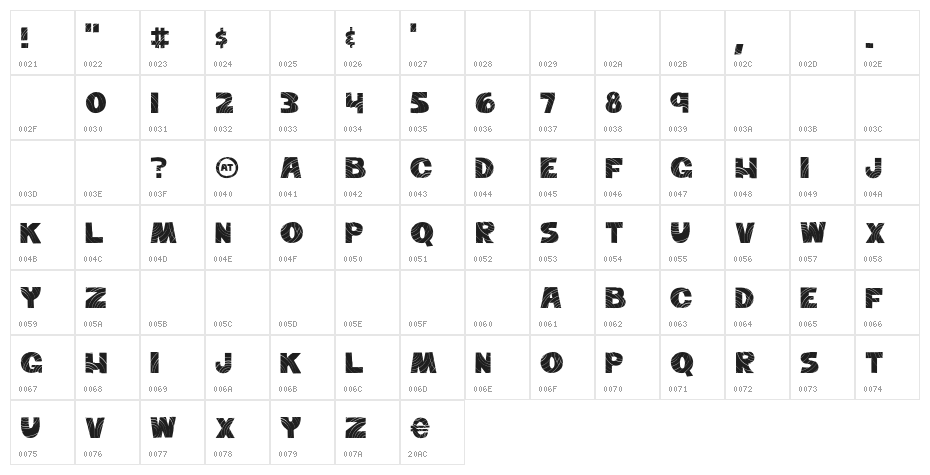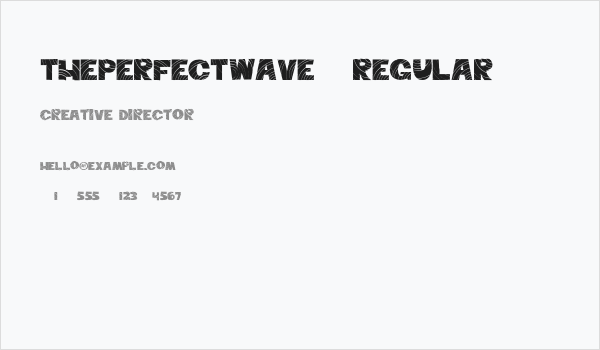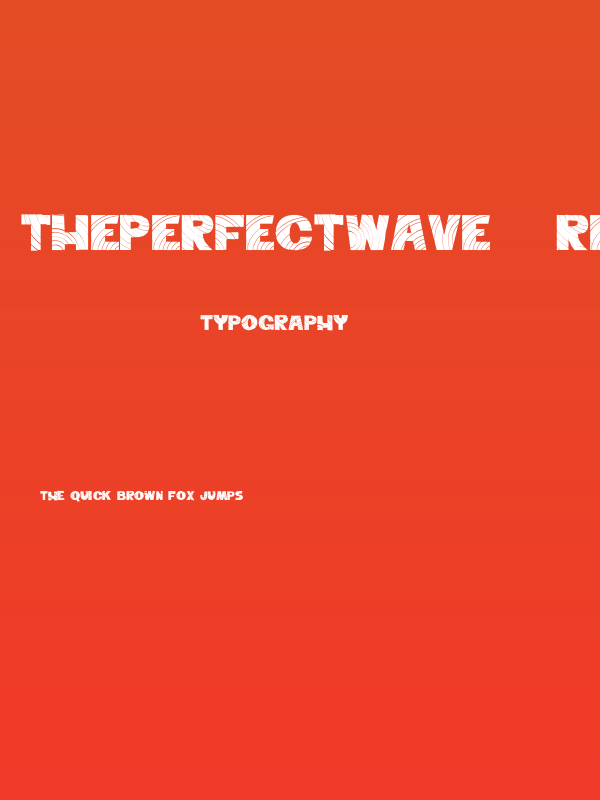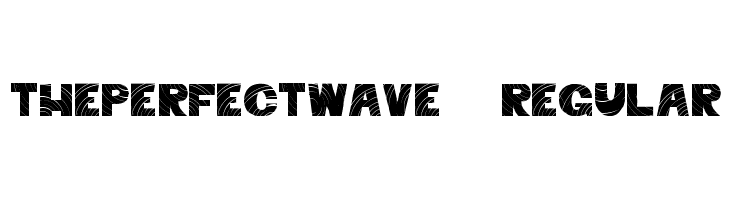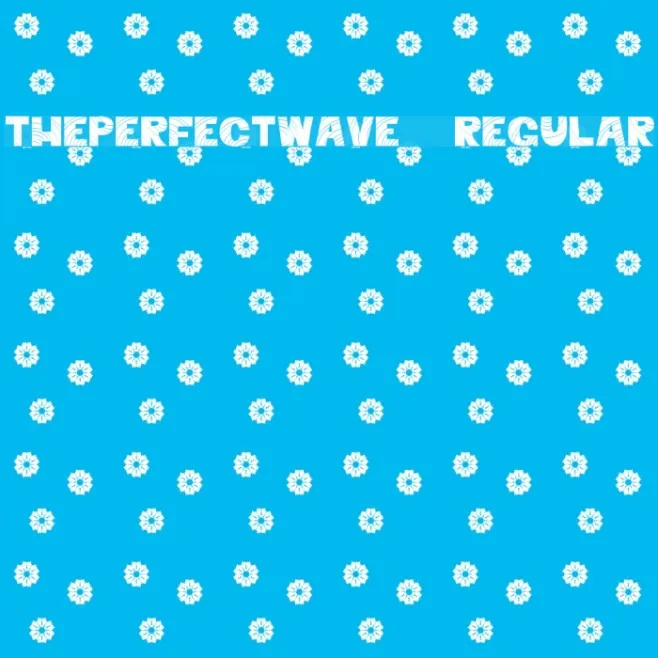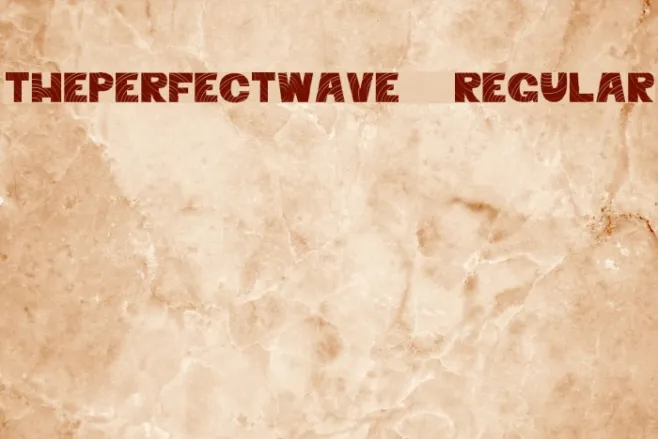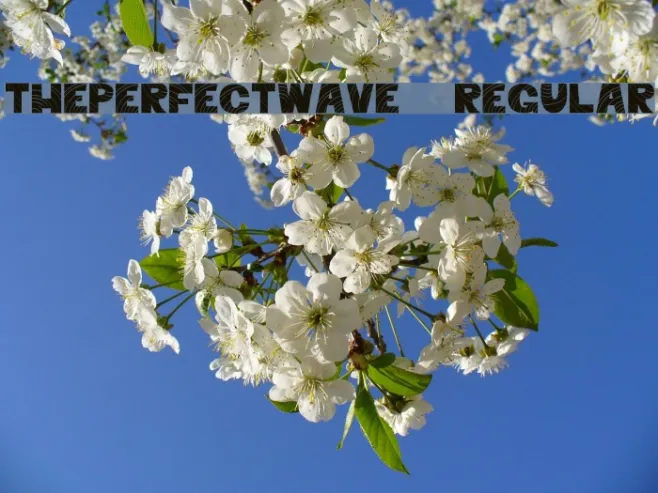
ThePerfectWave-Regular Font
ThePerfectWave-Regular Description
This font features a bold and dynamic design with a unique pattern that resembles waves or flowing lines within each character. The uppercase and lowercase letters maintain a consistent style, emphasizing a sense of movement and energy. The numbers and special characters are crafted with the same attention to detail, ensuring a cohesive look across all elements. The font's distinctive appearance makes it ideal for projects that require a strong visual impact, such as posters, branding, or any creative work that benefits from a bold and artistic touch.
| Proposed Projects | Posters, branding, creative projects, artistic designs, and any work requiring a strong visual impact. |